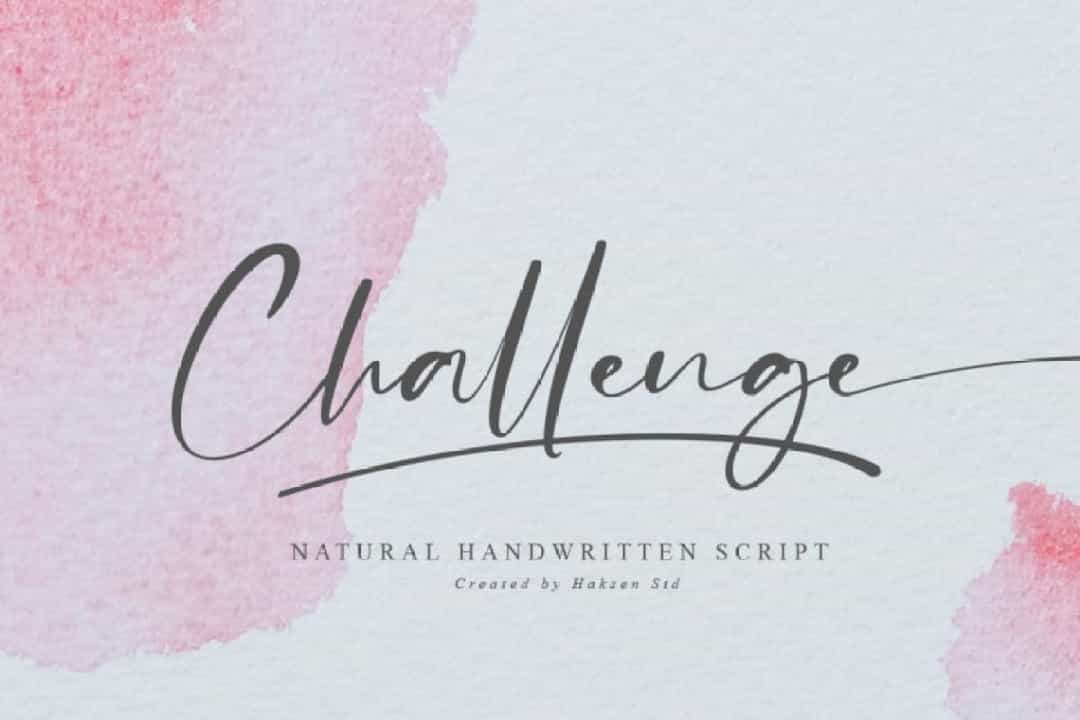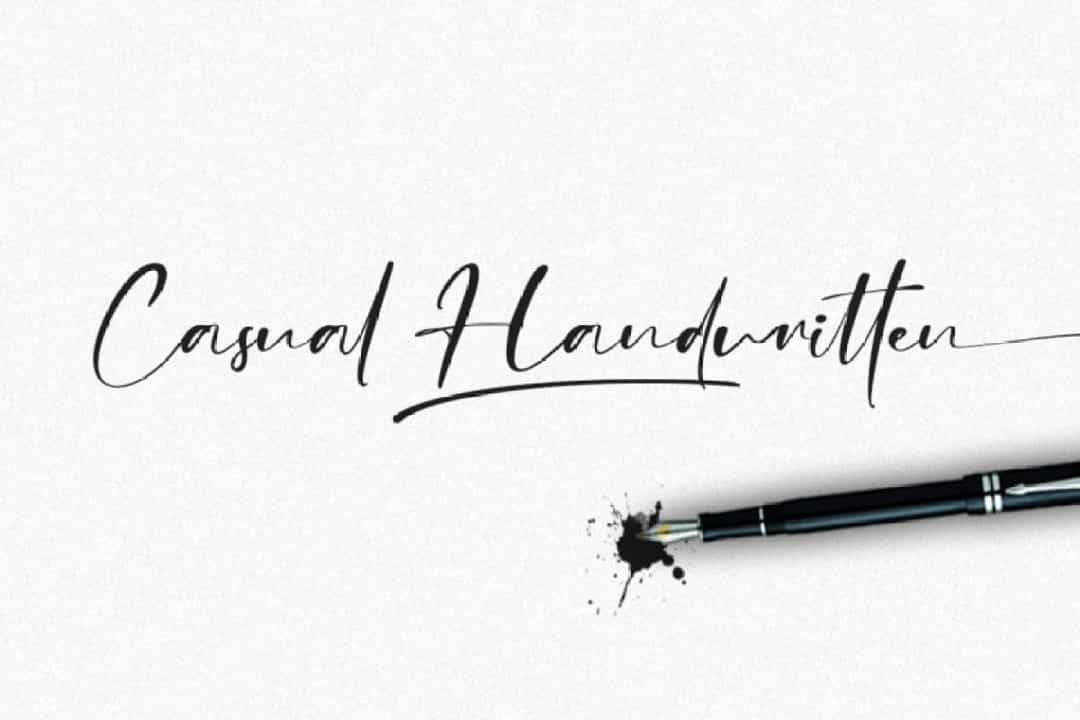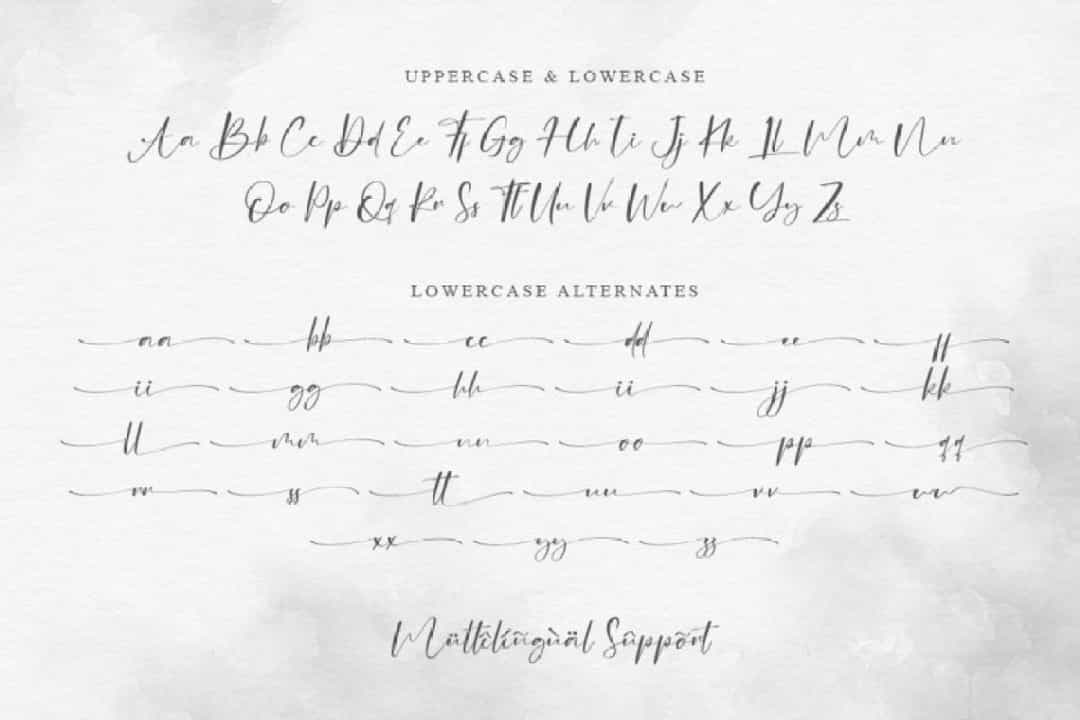
Challenge is an elegant handwritten script font with a bit of a bohemian flair that is suitable for branding and wedding invitations. The entire set consists of uppercase and lowercase numerals, punctuation marks, letters, and beginning and ending swashes, which give the font its handwritten style.